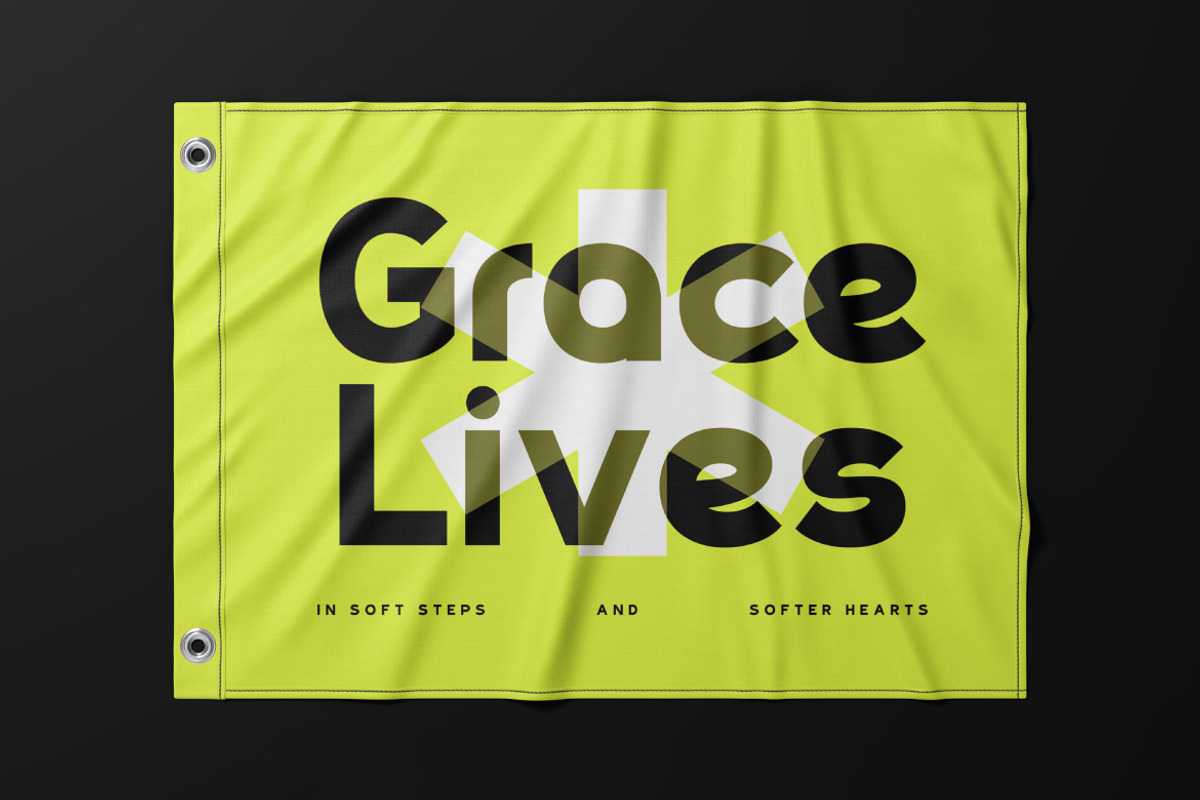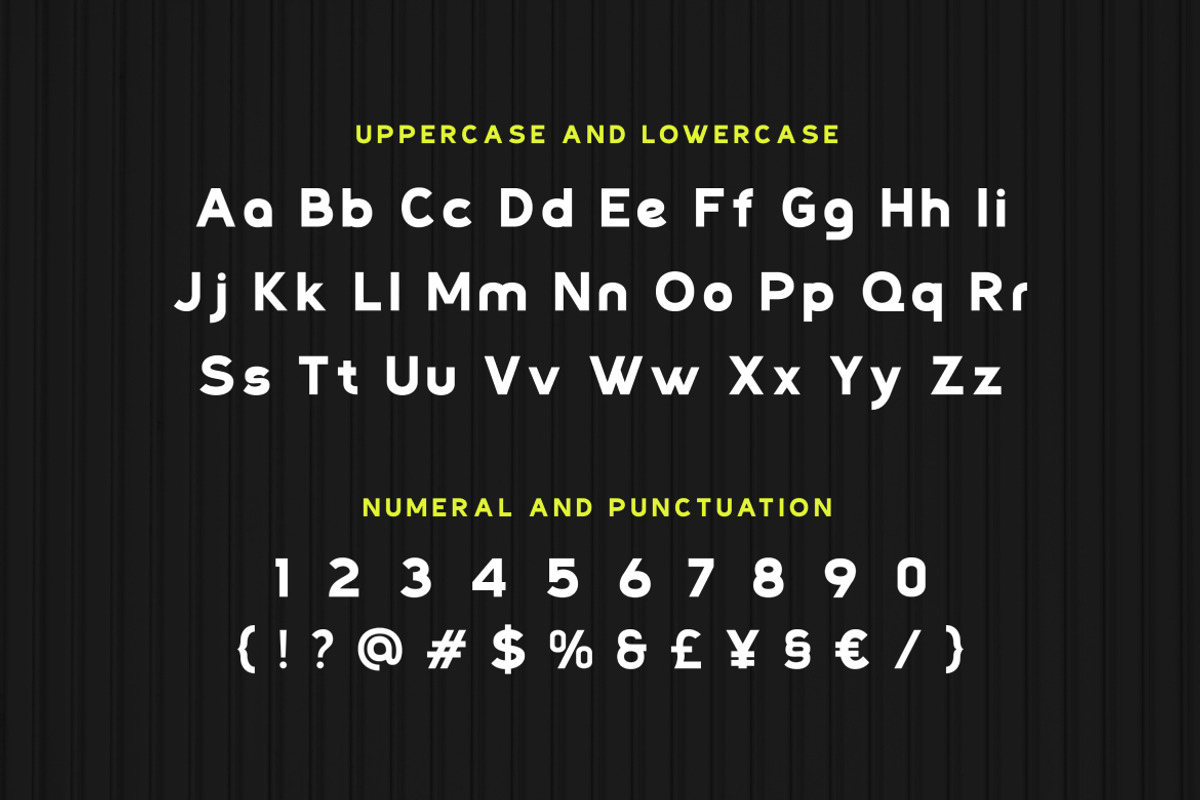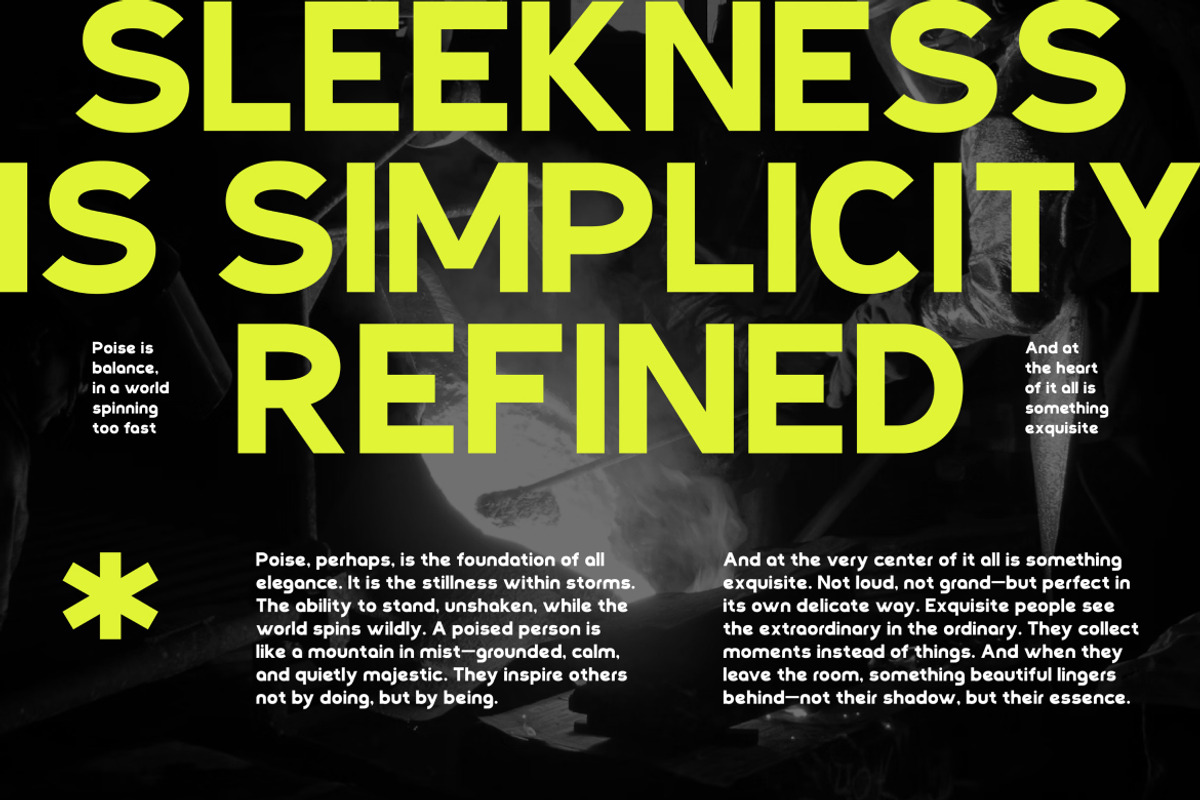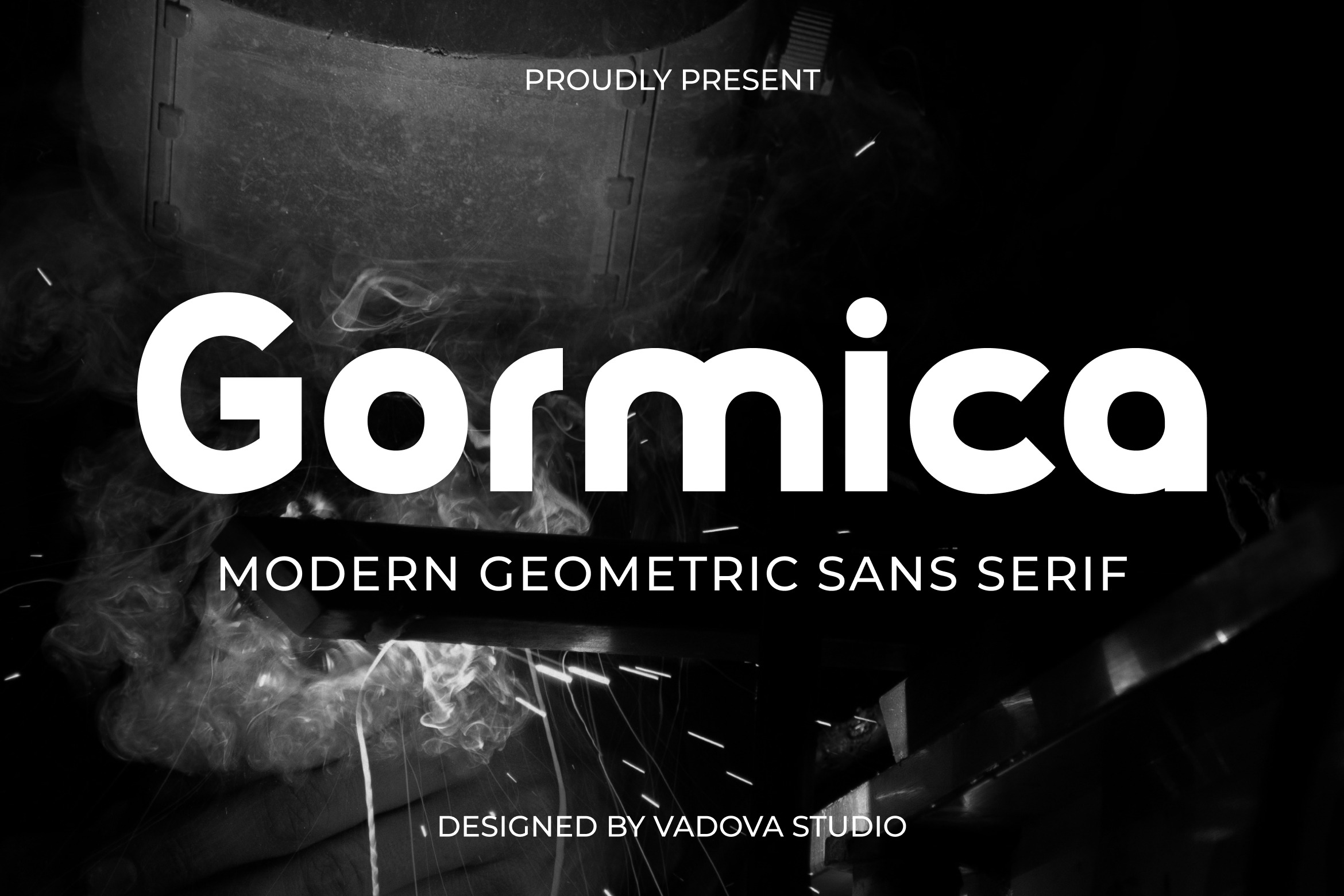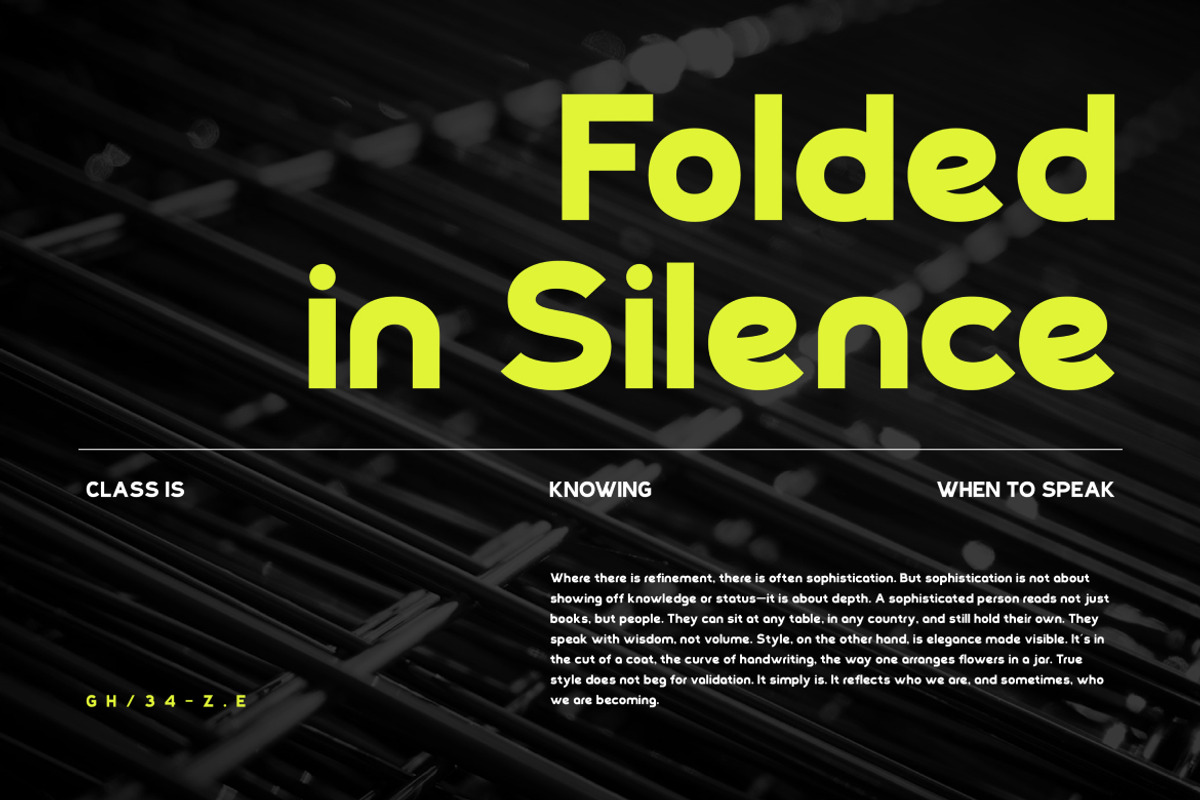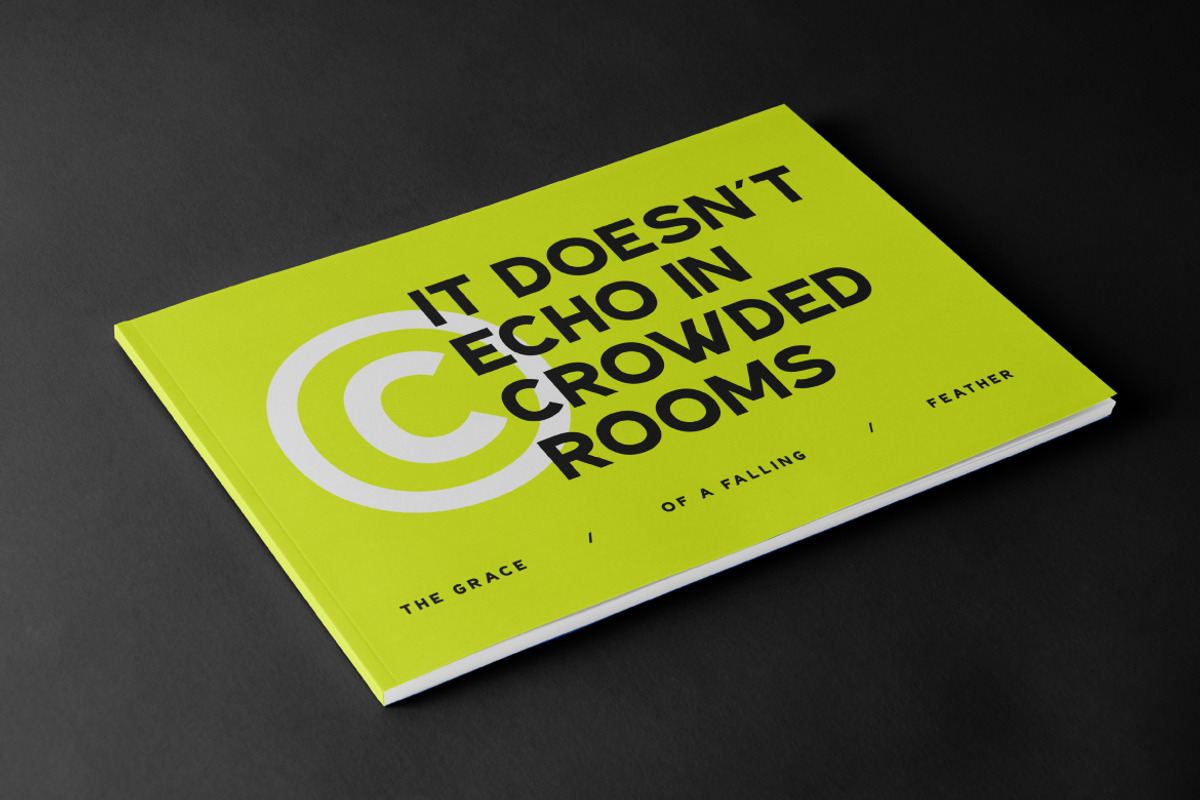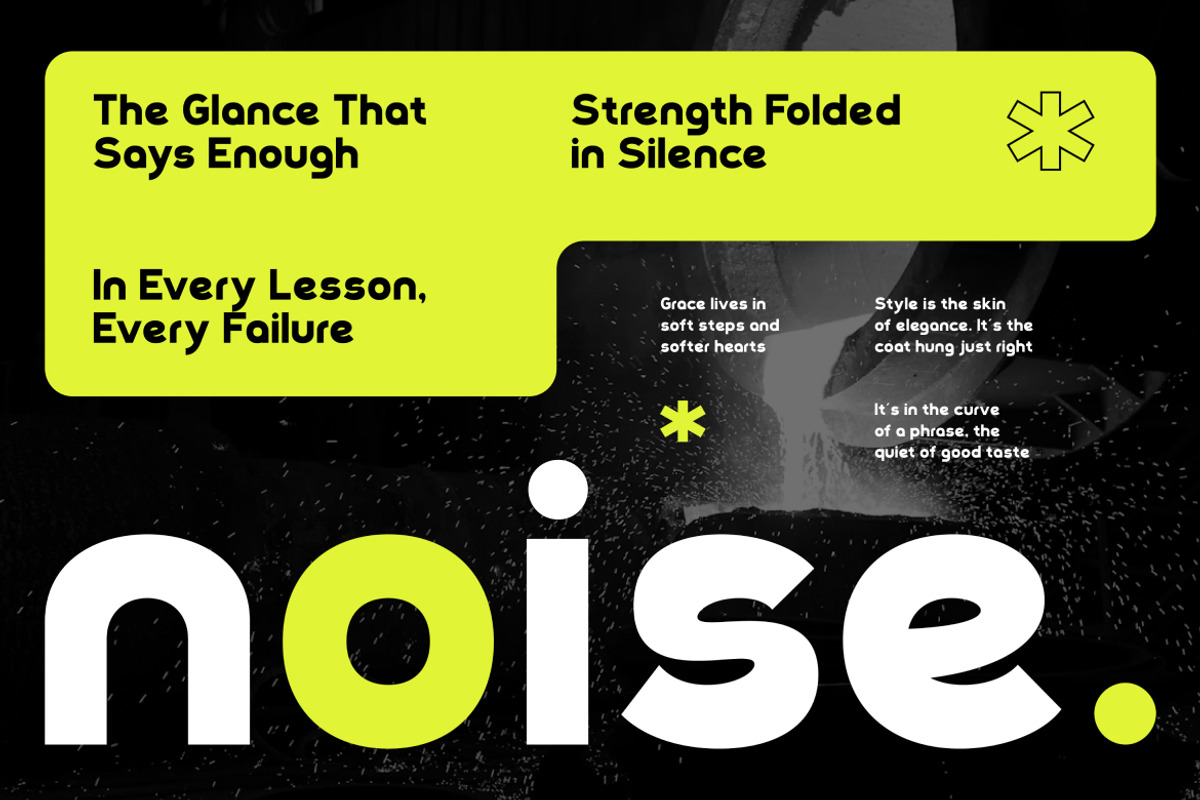
Gormica Geometric Sans Serif Font
Gormica is a bold and clean geometric sans serif typeface that merges modern structure with striking visual presence. This font offers both uppercase and lowercase characters, multilingual support, numerals, and essential punctuation. Gormica’s strong letterforms and balanced proportions make it ideal for branding, posters, editorial headlines, tech interfaces, and product packaging.
Gormica is perfect for designers and creatives who need a reliable, bold sans serif for high-impact visuals. Whether it’s a tech product interface, bold magazine spread, brand identity, or sleek digital ad, Gormica delivers clarity and strength. Its geometric roots give it a timeless structure, while the modern finish ensures it fits right into today’s visual trends.
- Geometric sans serif foundation with bold modern construction
- Smooth, clean curves for a polished and refined look
- Uniform stroke thickness for visual balance and simplicity
- Rounded shapes and softened edges for a friendly appeal
- High legibility for both large display and digital interface use
- Brand identity systems seeking a calm yet professional tone
- UI/UX design templates for modern tech products and mobile apps
- Editorial magazines and minimalist book layouts
- Product packaging and label design for clean aesthetics
- Social media templates and digital marketing kits with restrained elegance
Bold geometry meets clean elegance Gormica makes every word stand out with confident clarity